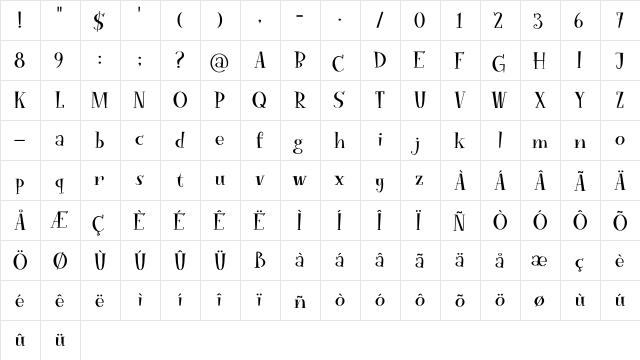
Funky Flamingo DEMO Regular
| Foundry | David Kerkhoff |
| Designer | David Kerkhoff |
Design Context for Funky Flamingo DEMO Typeface
Funky Flamingo DEMO trades formality for fun, with bouncy, characterful letterforms that bring warmth and energy to any project.
Font Pairing: Pairs well with a rounded or humanist sans for body copy, maintaining the friendly tone without relying on Funky Flamingo DEMO to carry extended reading.
Pro Tip: Use Funky Flamingo DEMO at larger display sizes where its expressive character can land. Pair with a clean, simple sans for body copy to maintain readability.